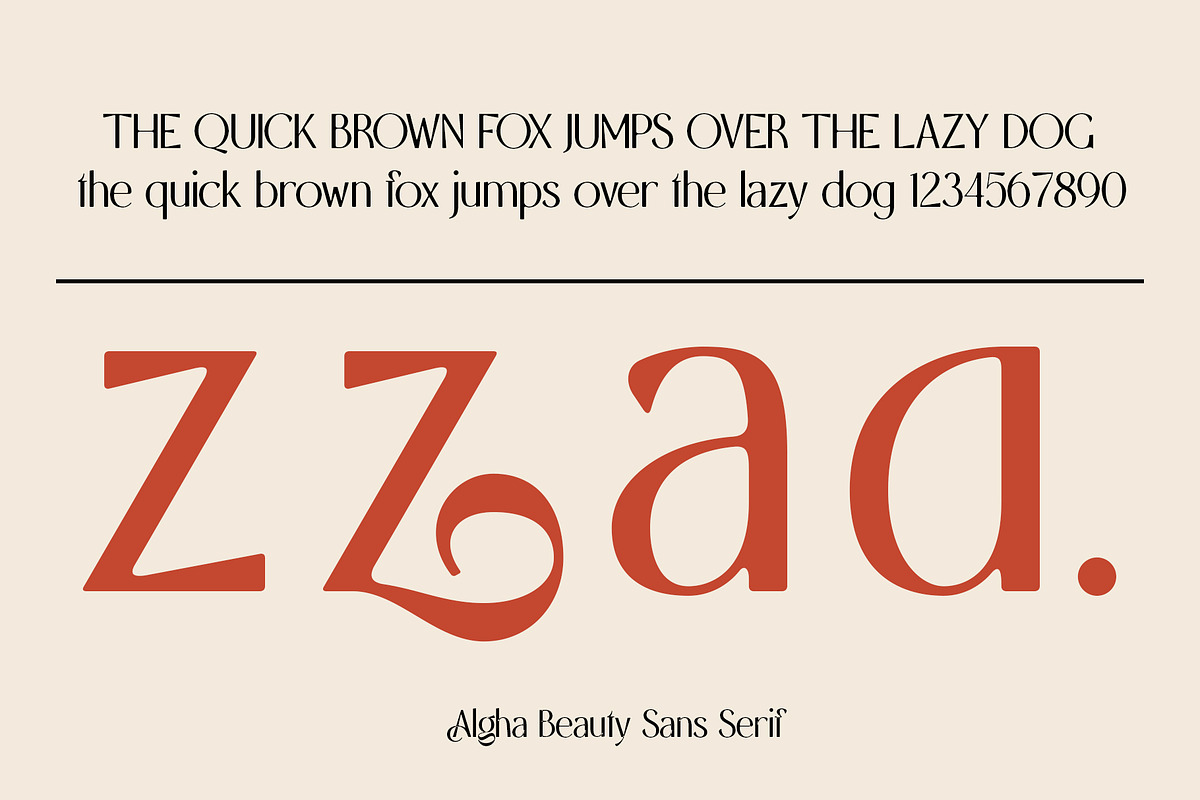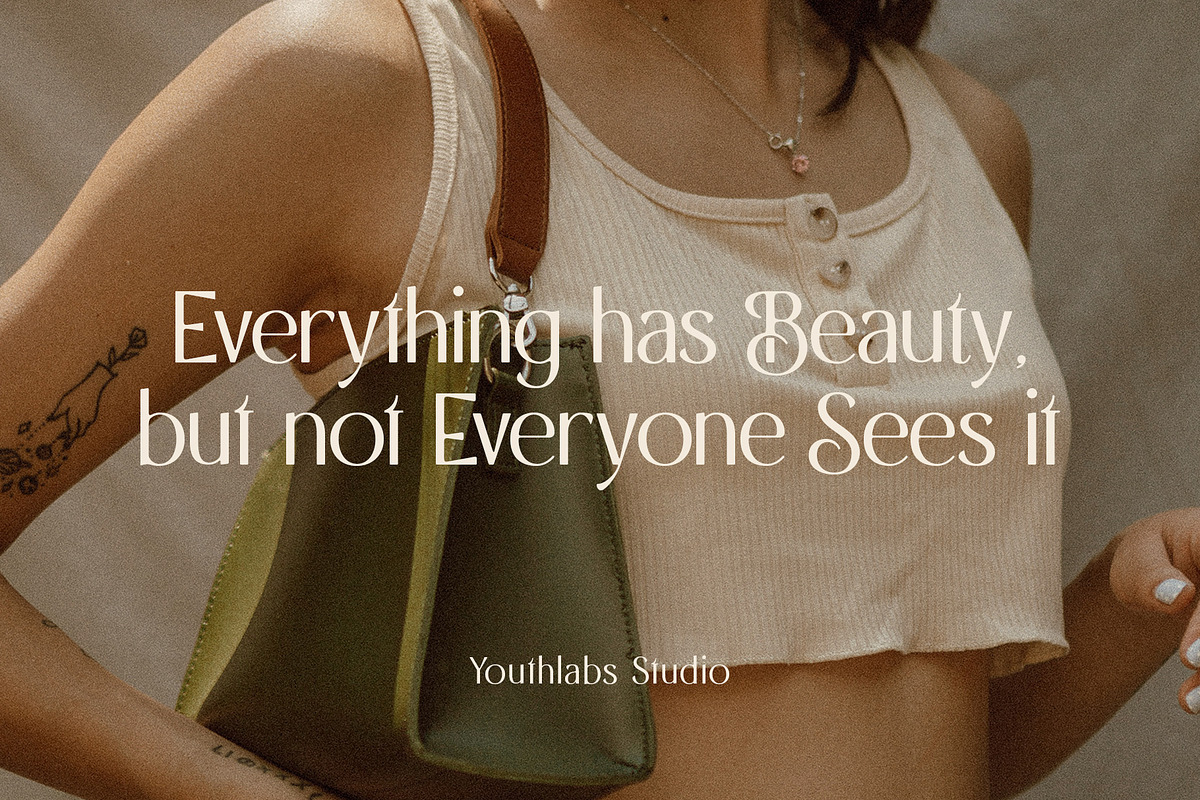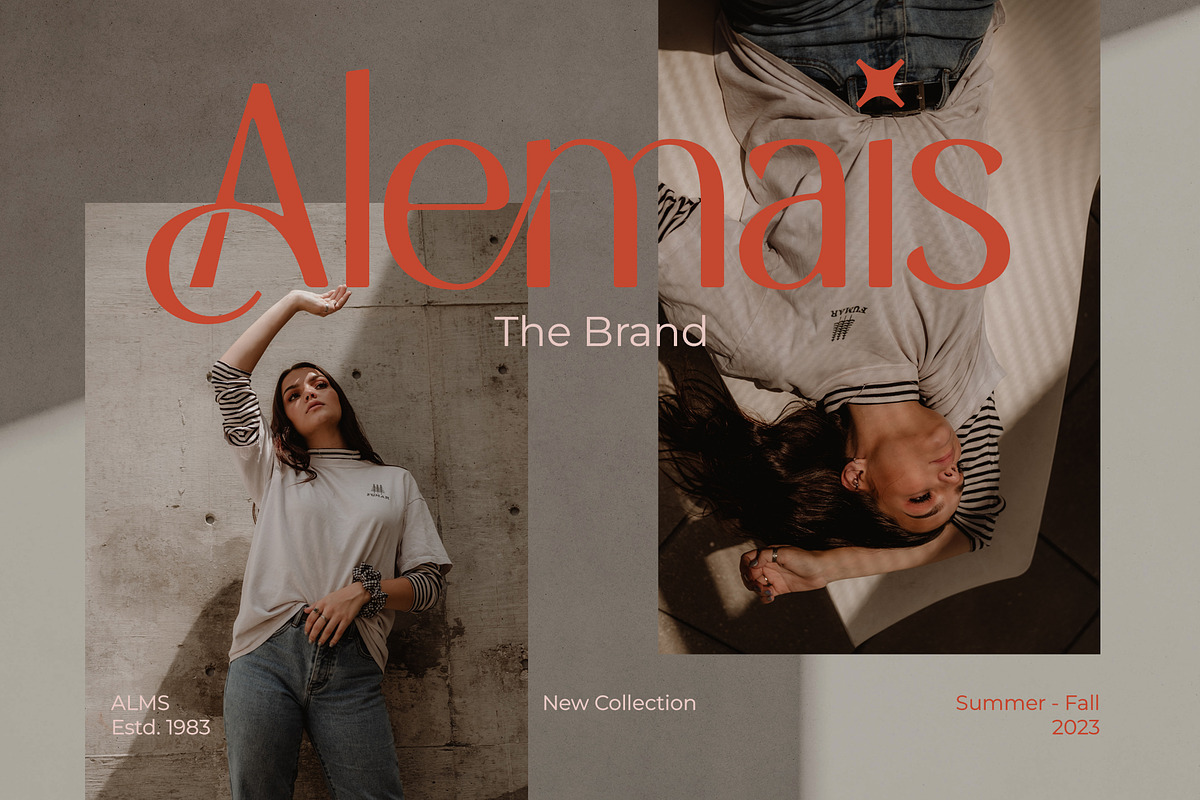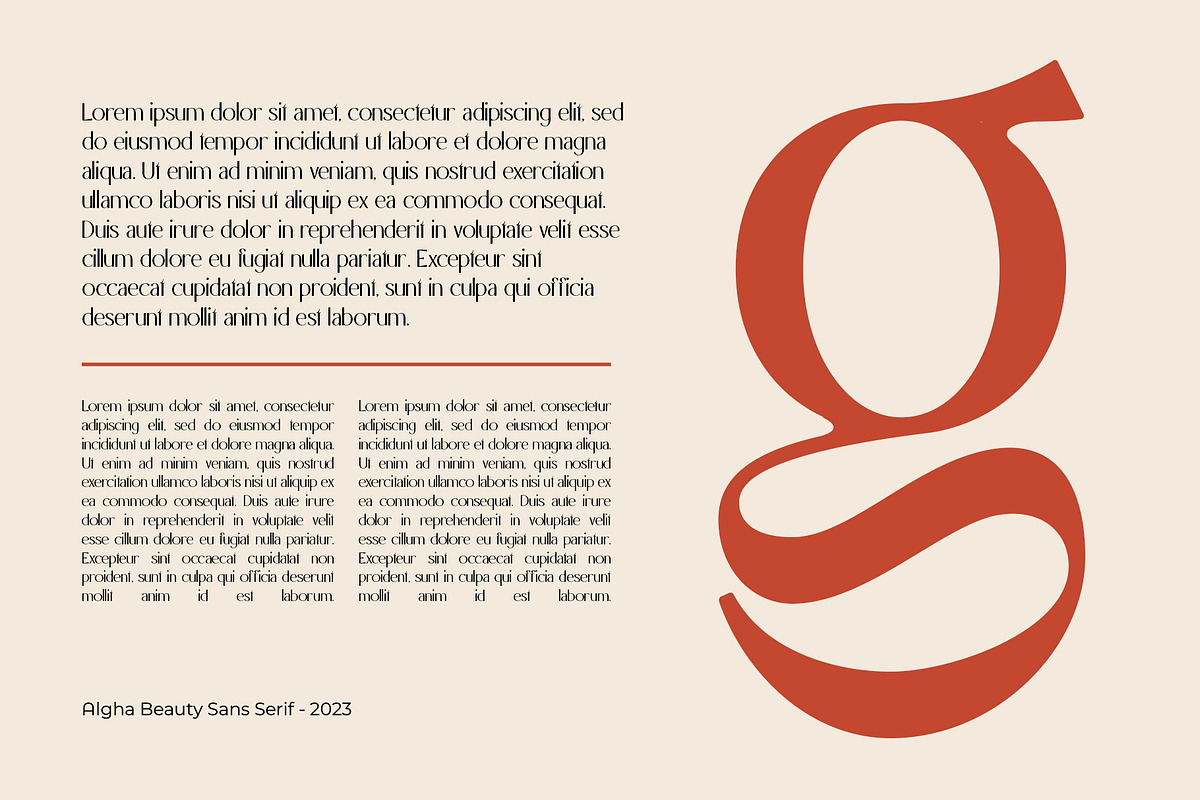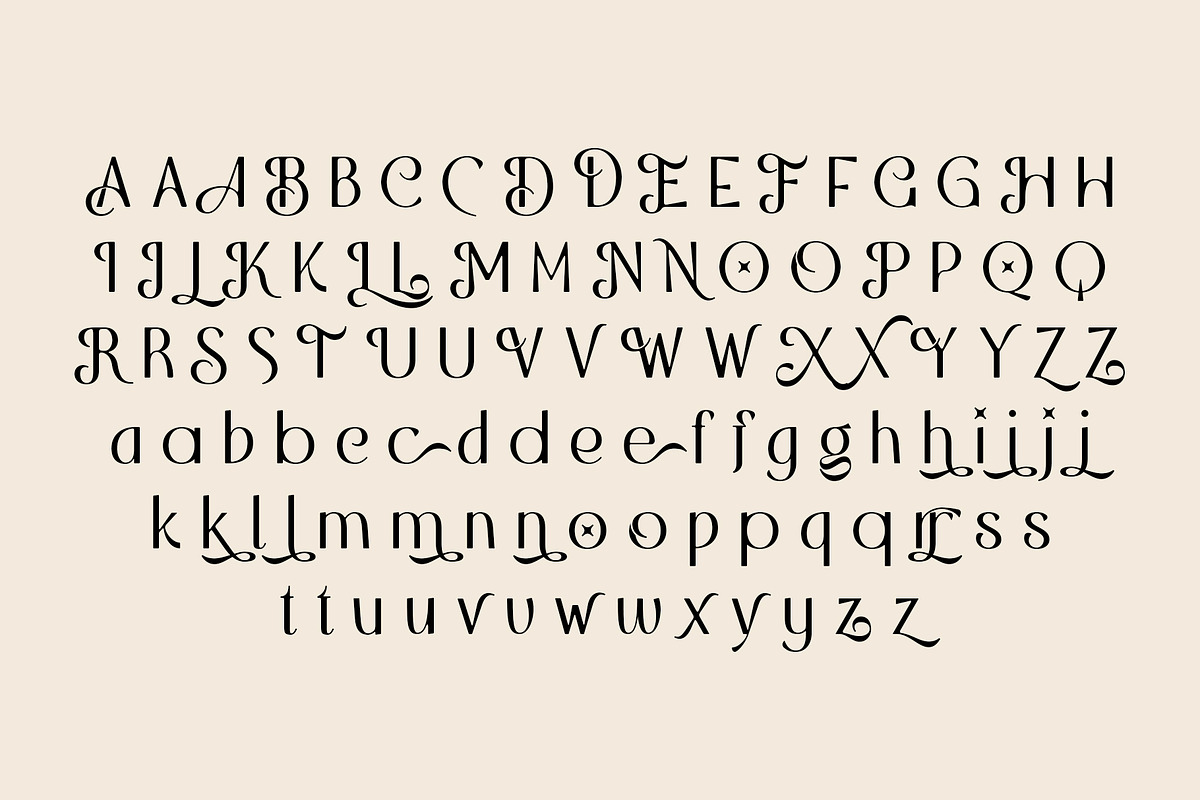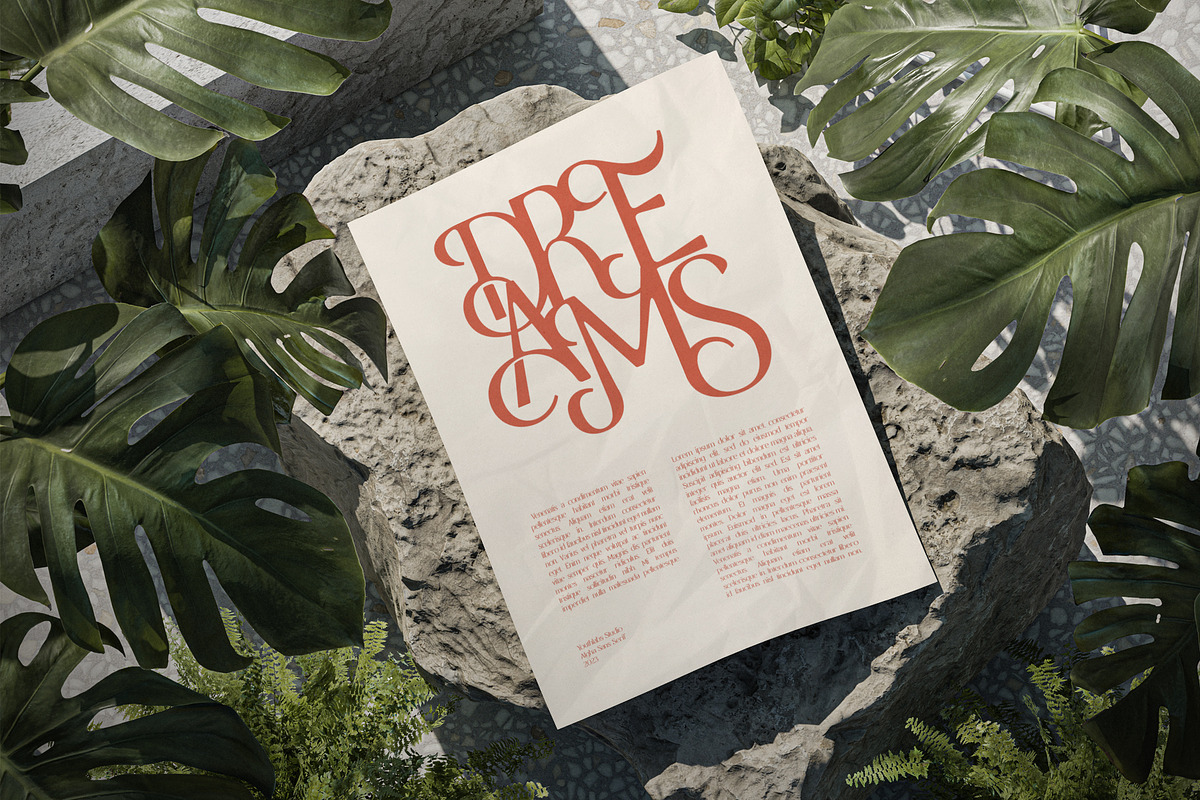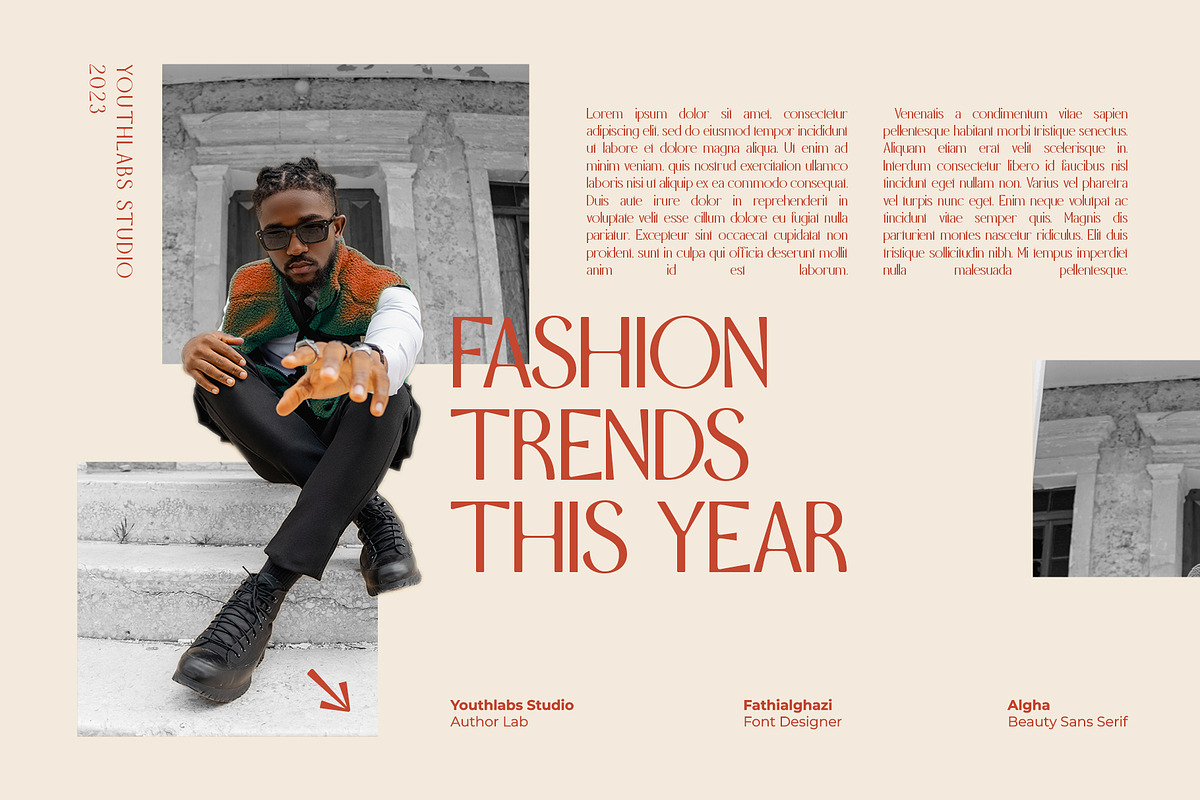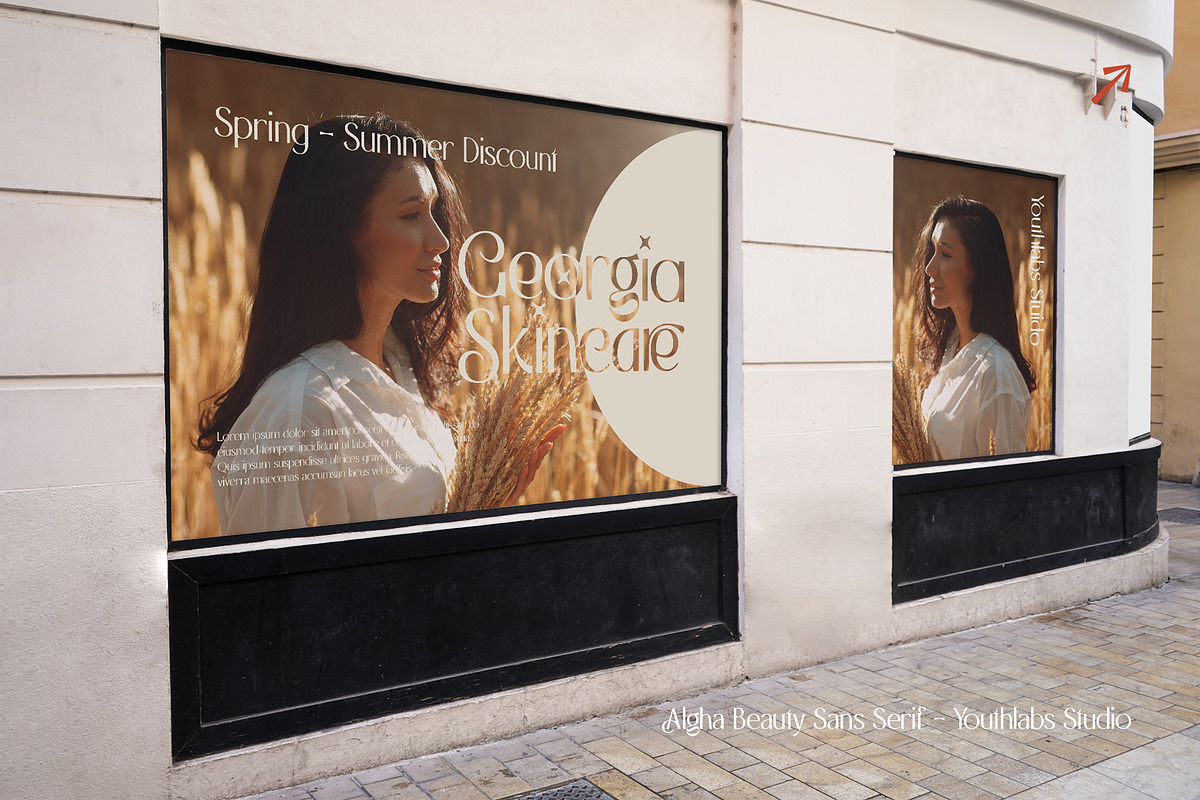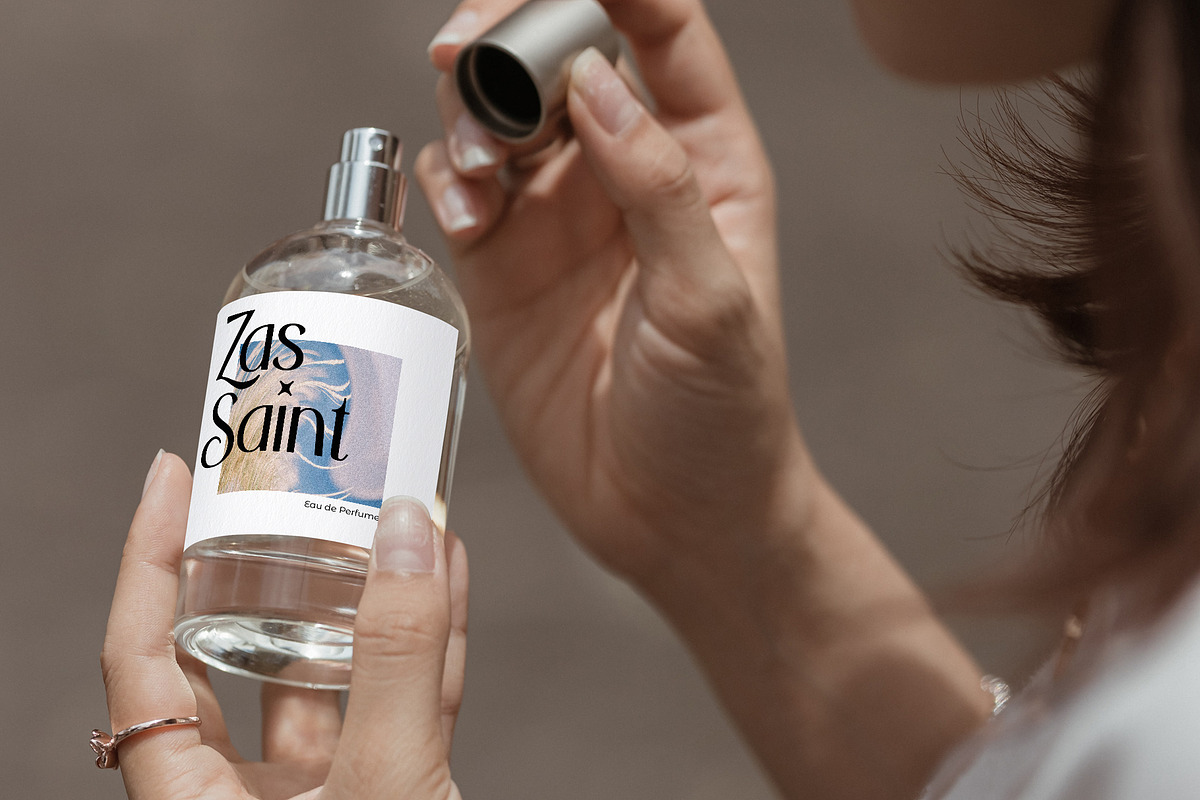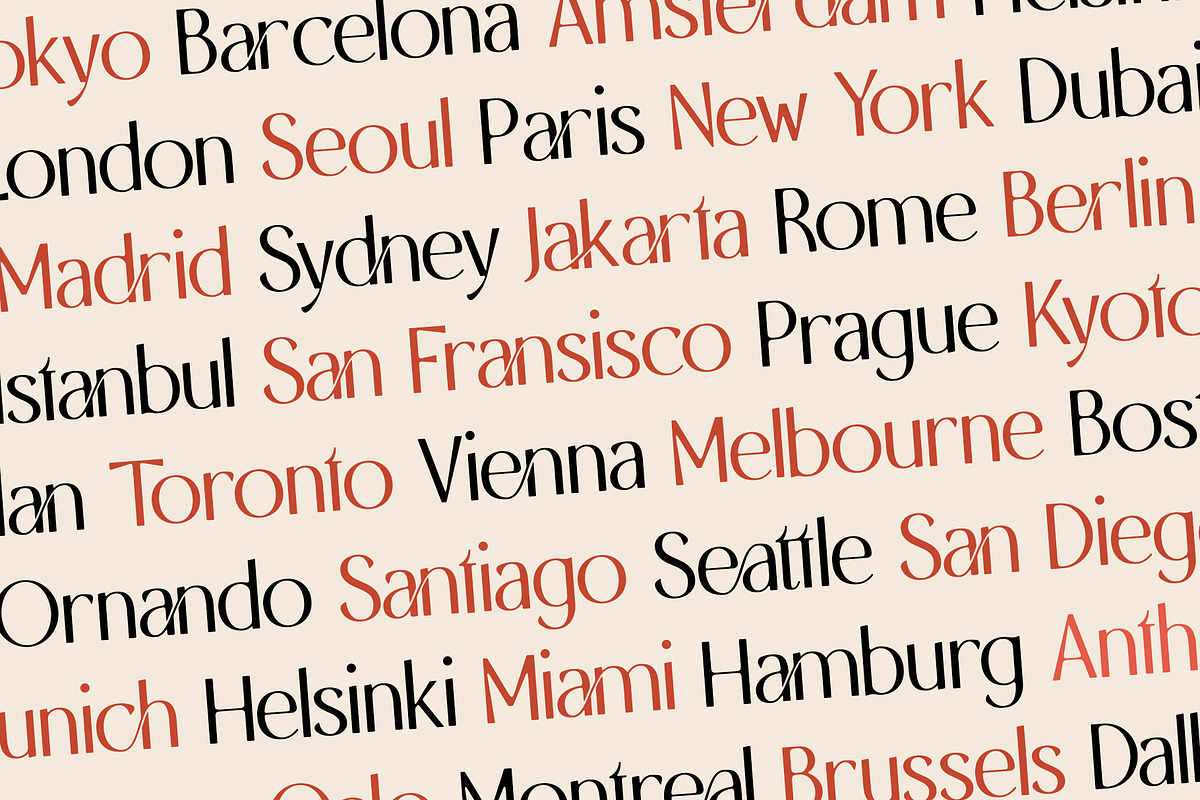
Algha | Beauty Sans Serif
Introducing Algha Beauty Sans Serif Font. Algha inspired from cottagecore which prioritizes beauty and elegance. Algha has an obtuse angle which means that beauty is not confined to the point of view. Algha is suitable for your needs that require beauty. Algha can be worn simply or with ornaments.
What's The Feature ?
- 3 Stylistic Alternate Set
- Stylistic Ligature
- Smooth Corner